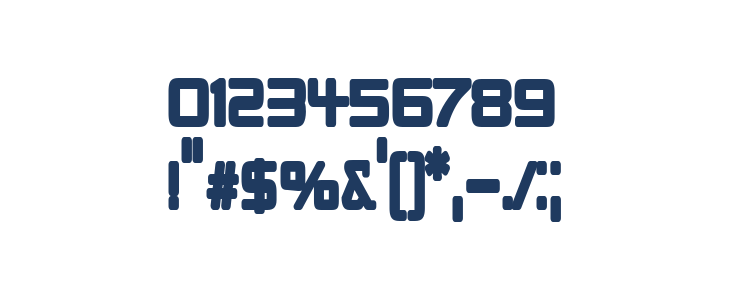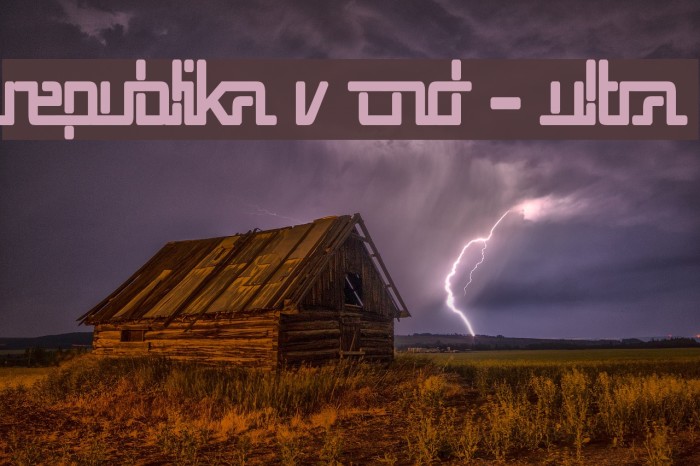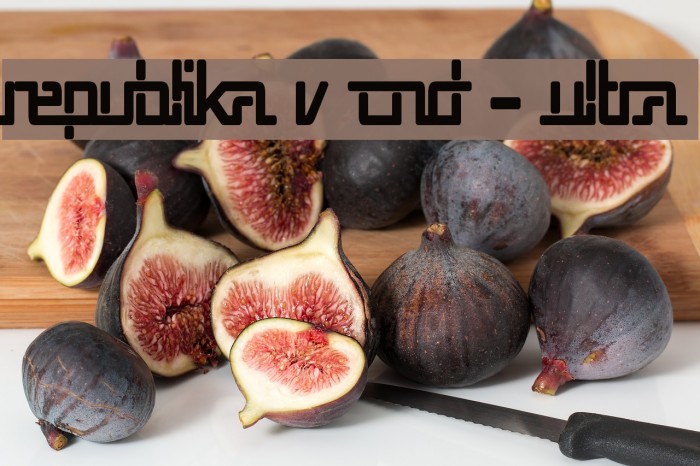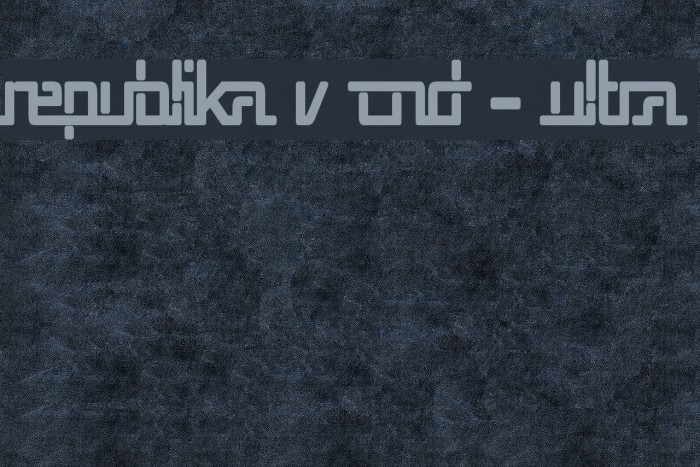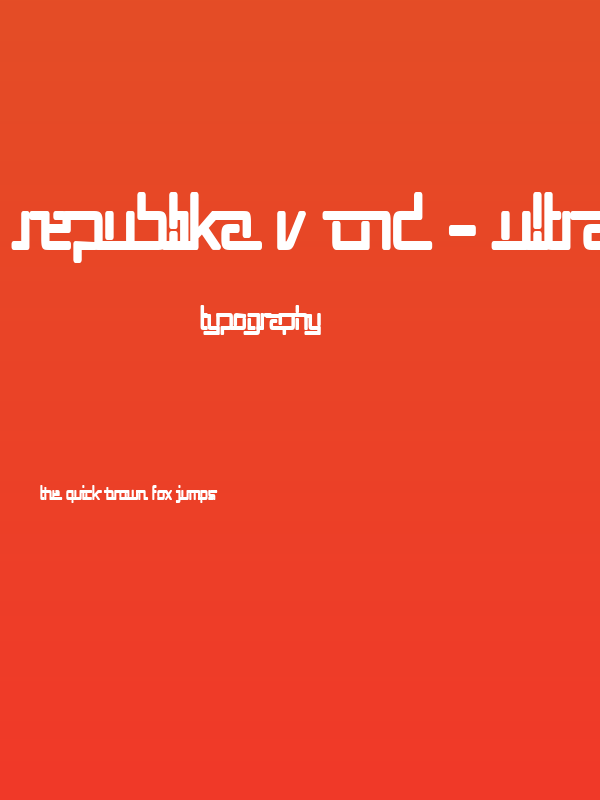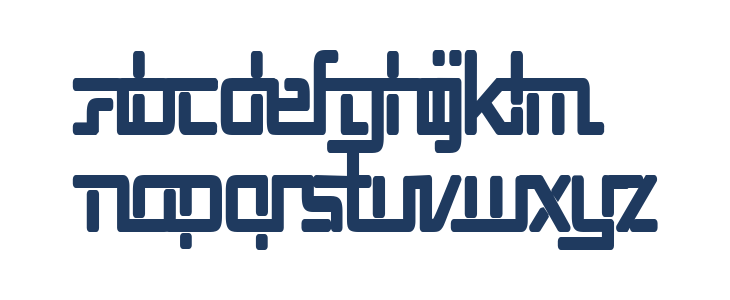
Republika V Cnd - Ultra Font
Republika V Cnd - Ultra Description
This font features a bold, geometric design with a futuristic and modern aesthetic. The characters are constructed with thick, uniform strokes that create a strong visual impact. The design is highly stylized, with a focus on angular shapes and a consistent line weight throughout. The uppercase and lowercase letters maintain a cohesive look, while the numerals and special characters are crafted to match the overall style. This font is ideal for projects that require a contemporary and edgy appearance, making it suitable for technology-related themes or modern branding.
| Proposed Projects | Ideal for technology branding, modern posters, futuristic designs, and digital media. |